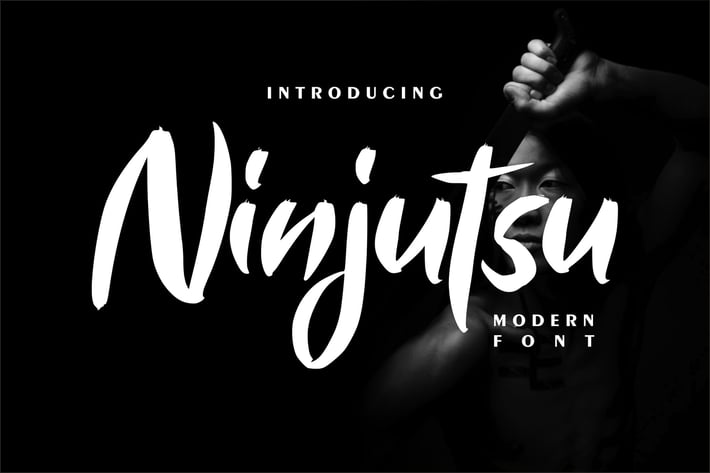
Ninjutsu | Modern Font
Ninjutsu | Modern Font with a calligraphy style, So beautiful on invitation like greeting cards, branding materials, business cards, quotes, posters, and more!